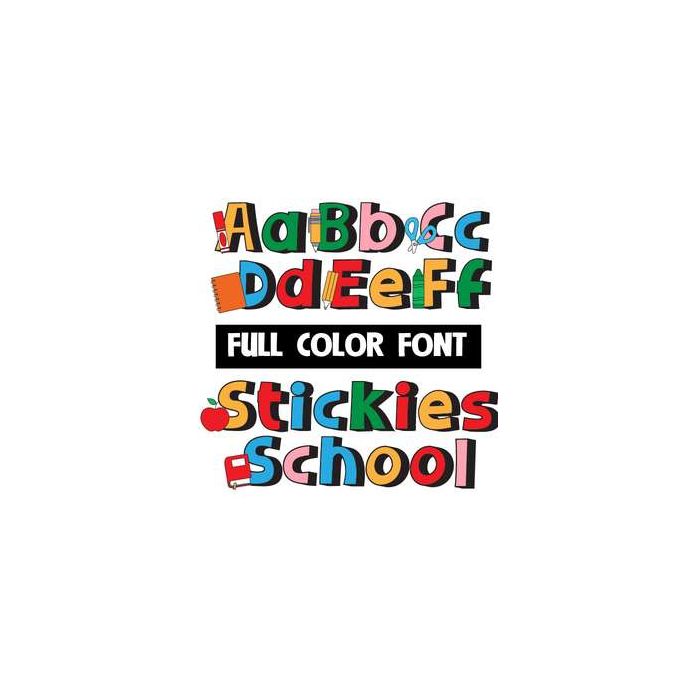
stickies school color font
This full-color font features school supplies to the left of the uppercase. Both cases have an alt version that you can access through your system's character map. This font works best for titles, displays, posters and more. Please note color fonts will show as black in non compatible programs. This font type is compatible with Silhouette Studio.